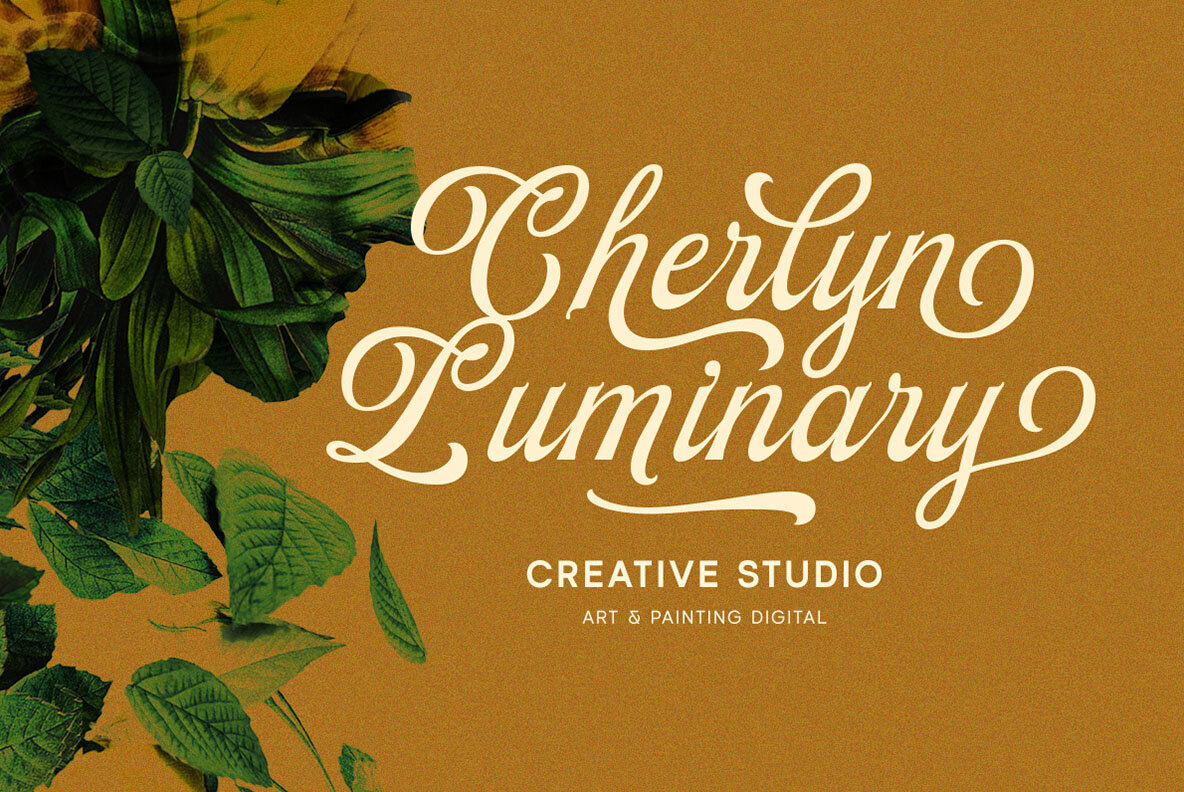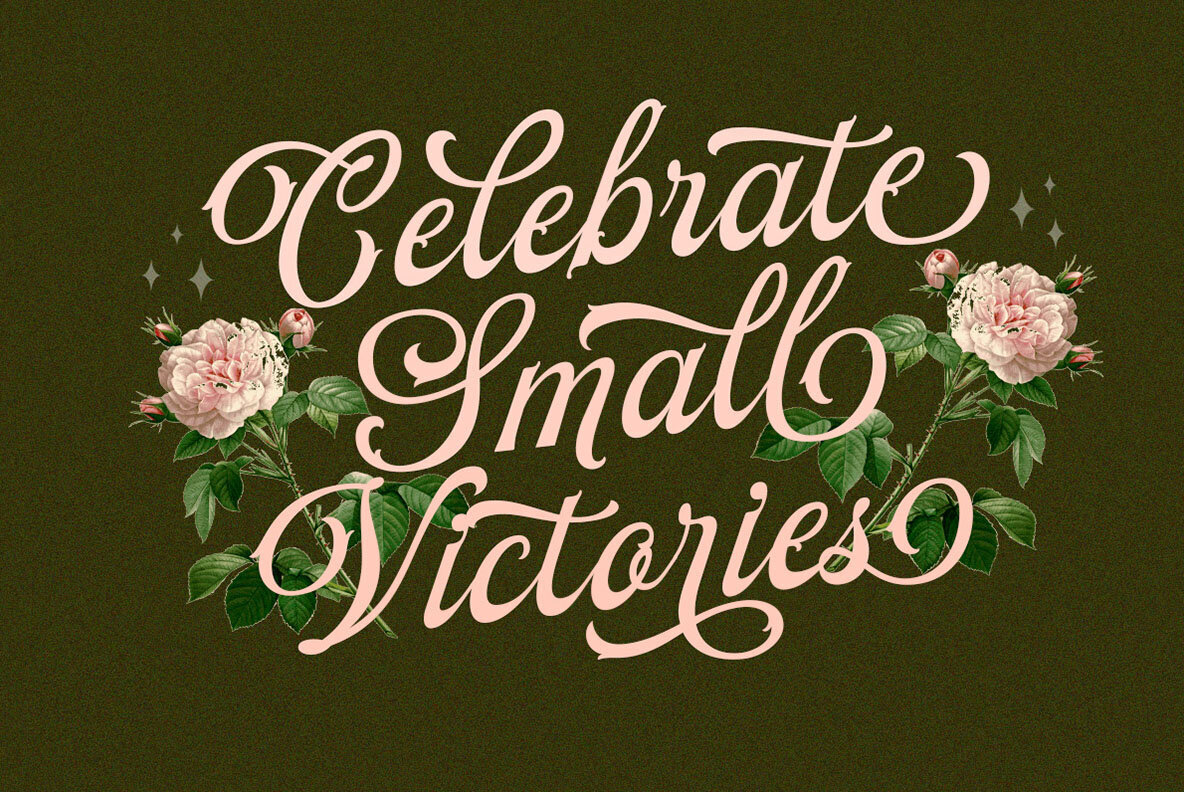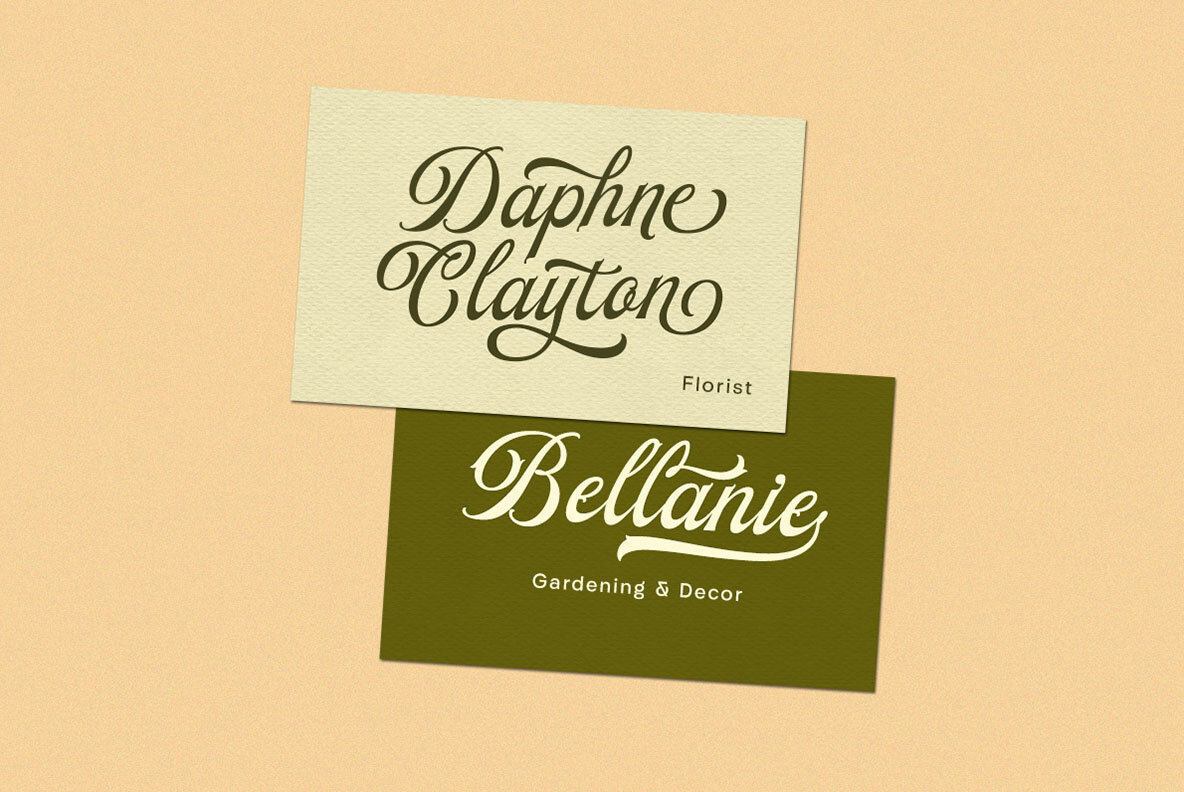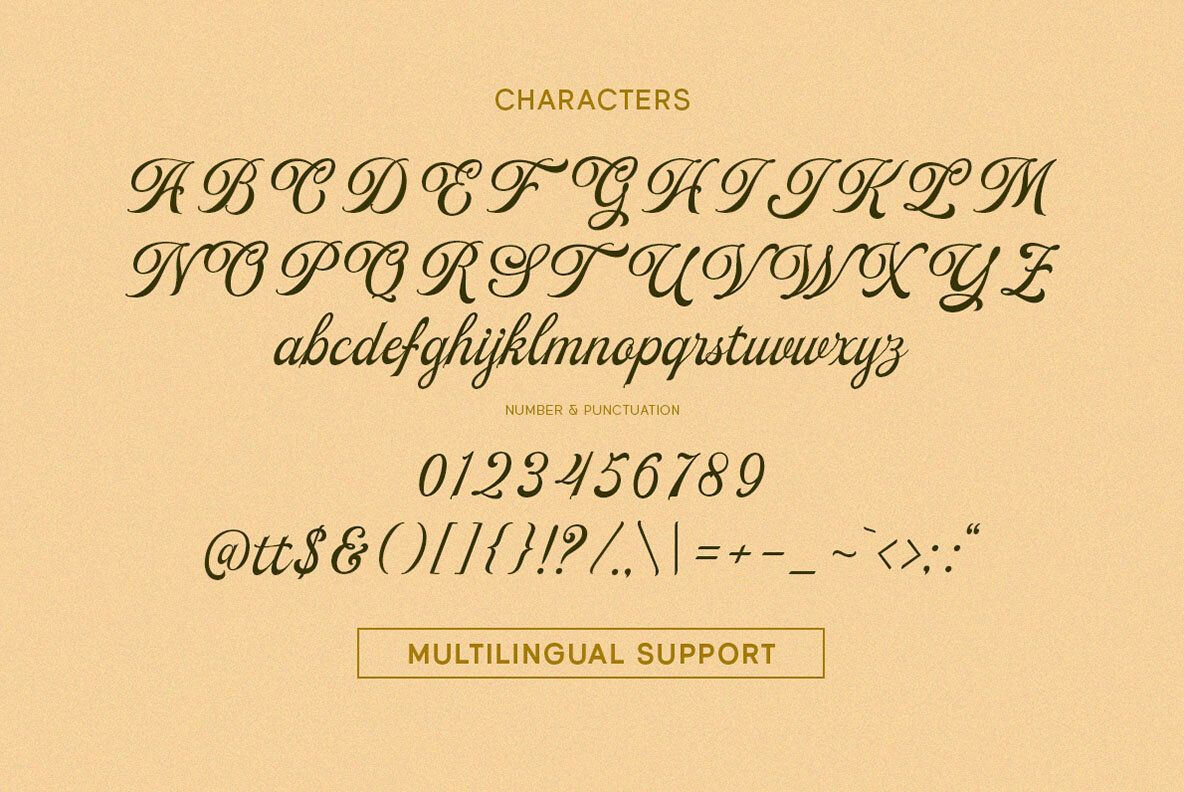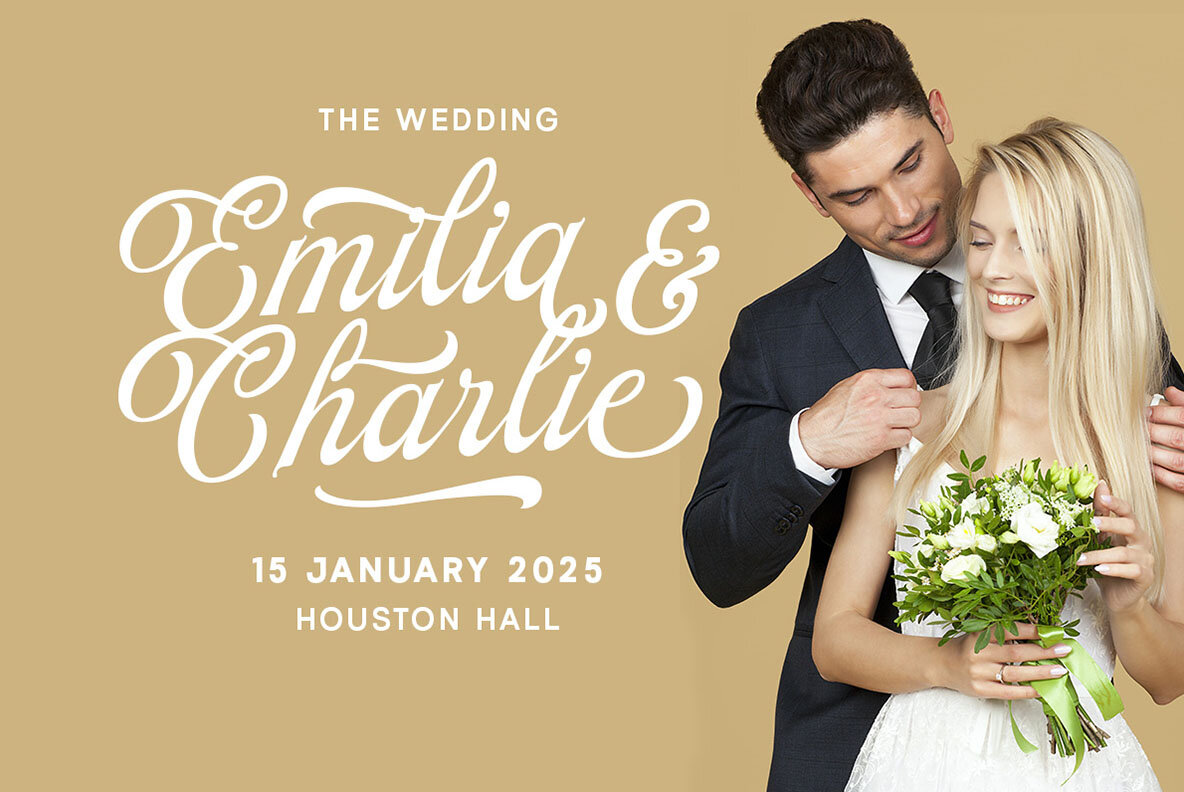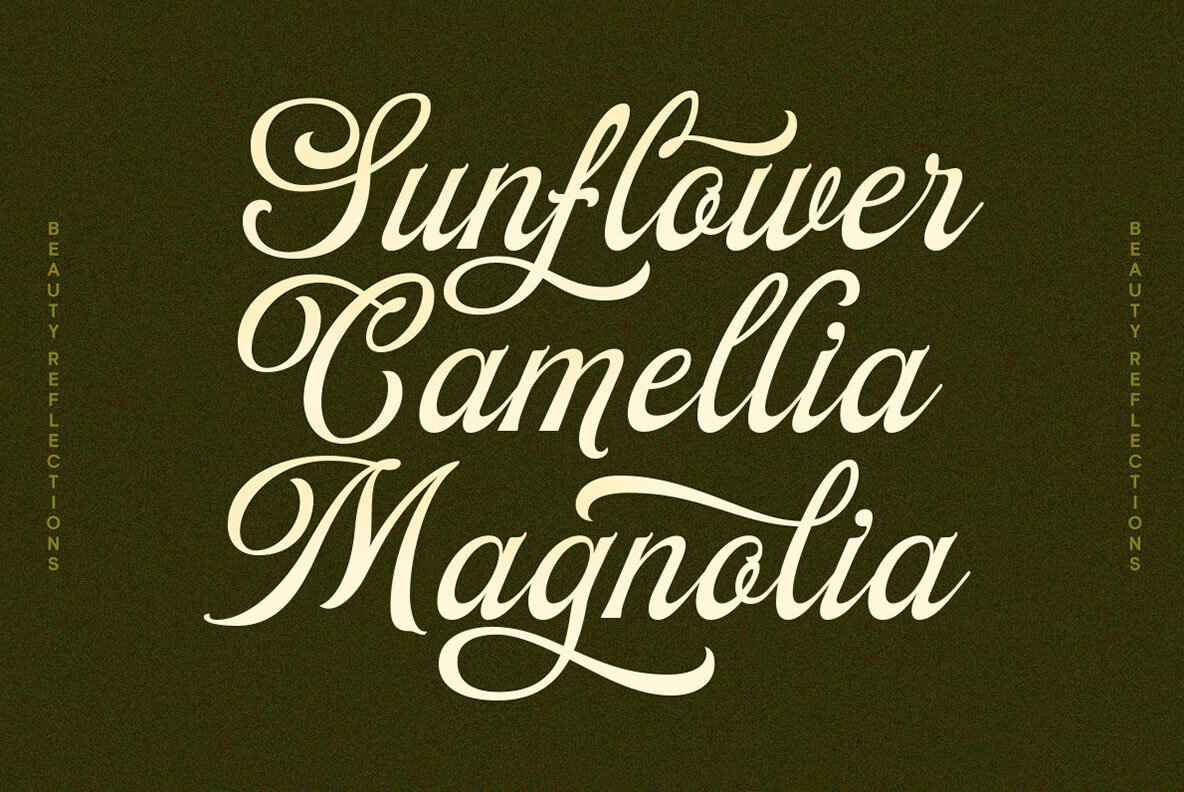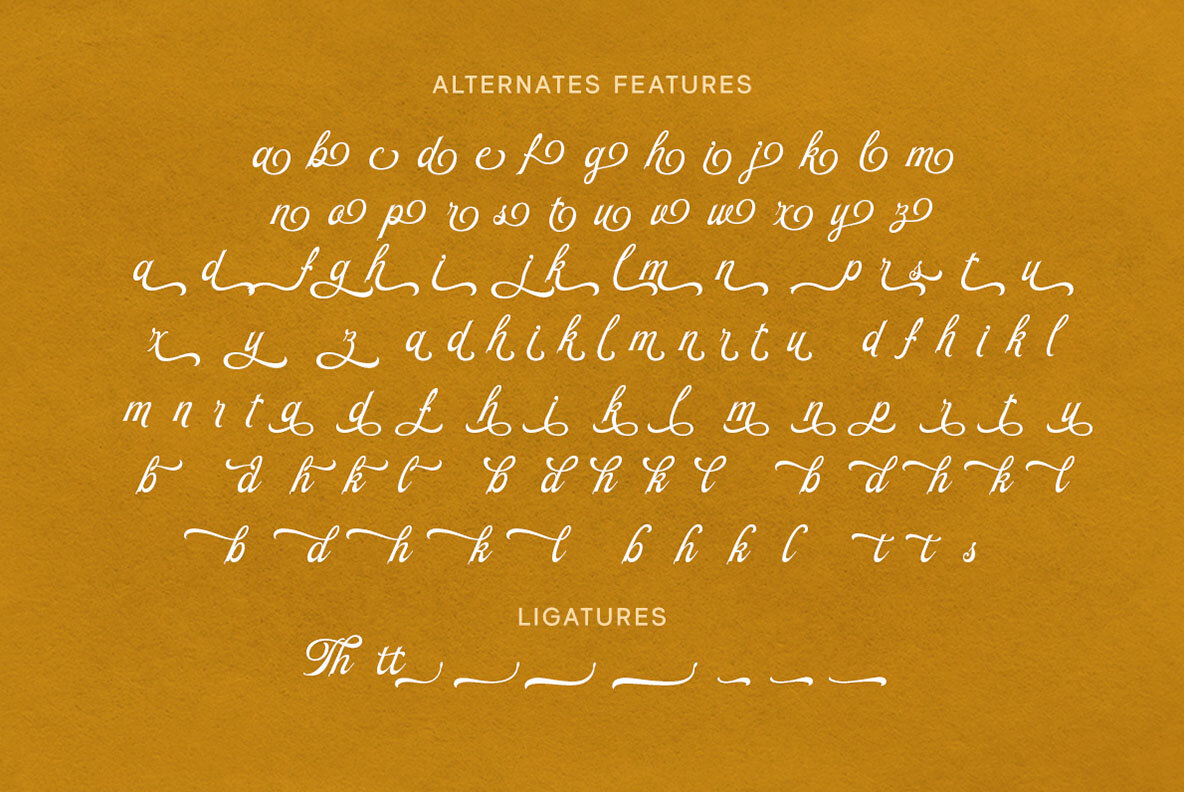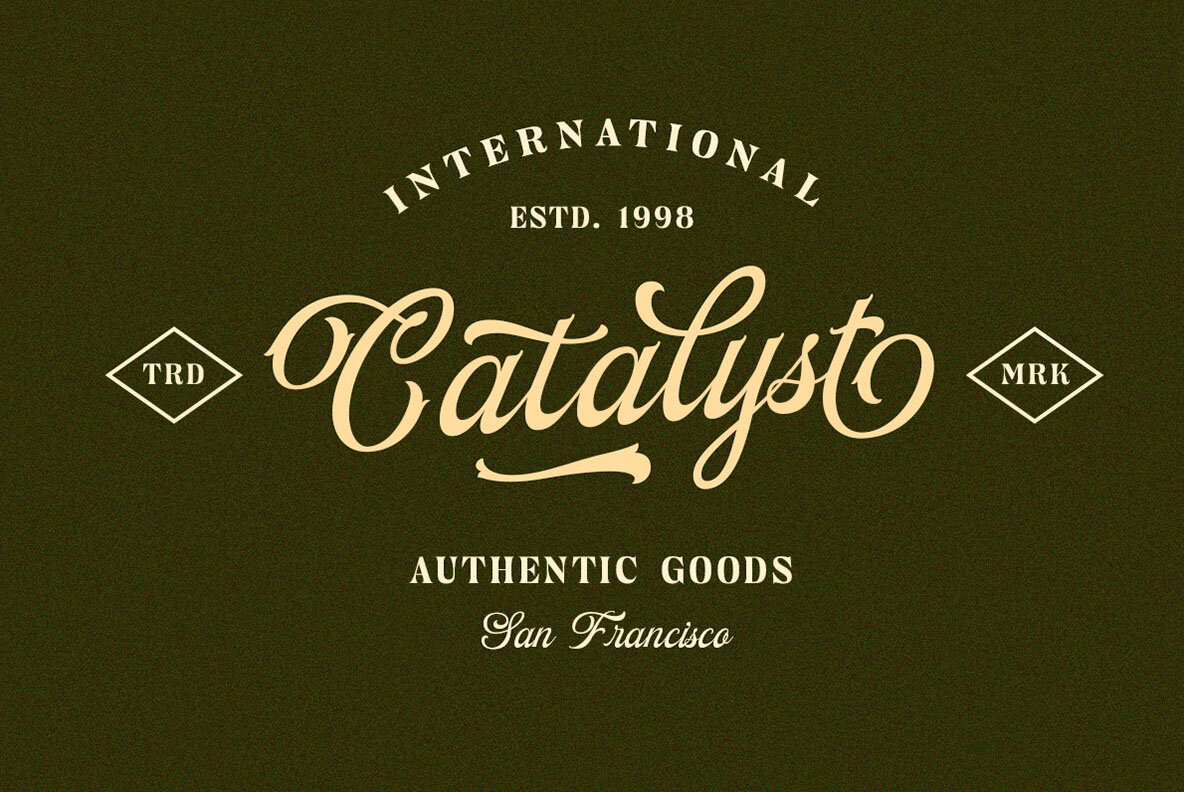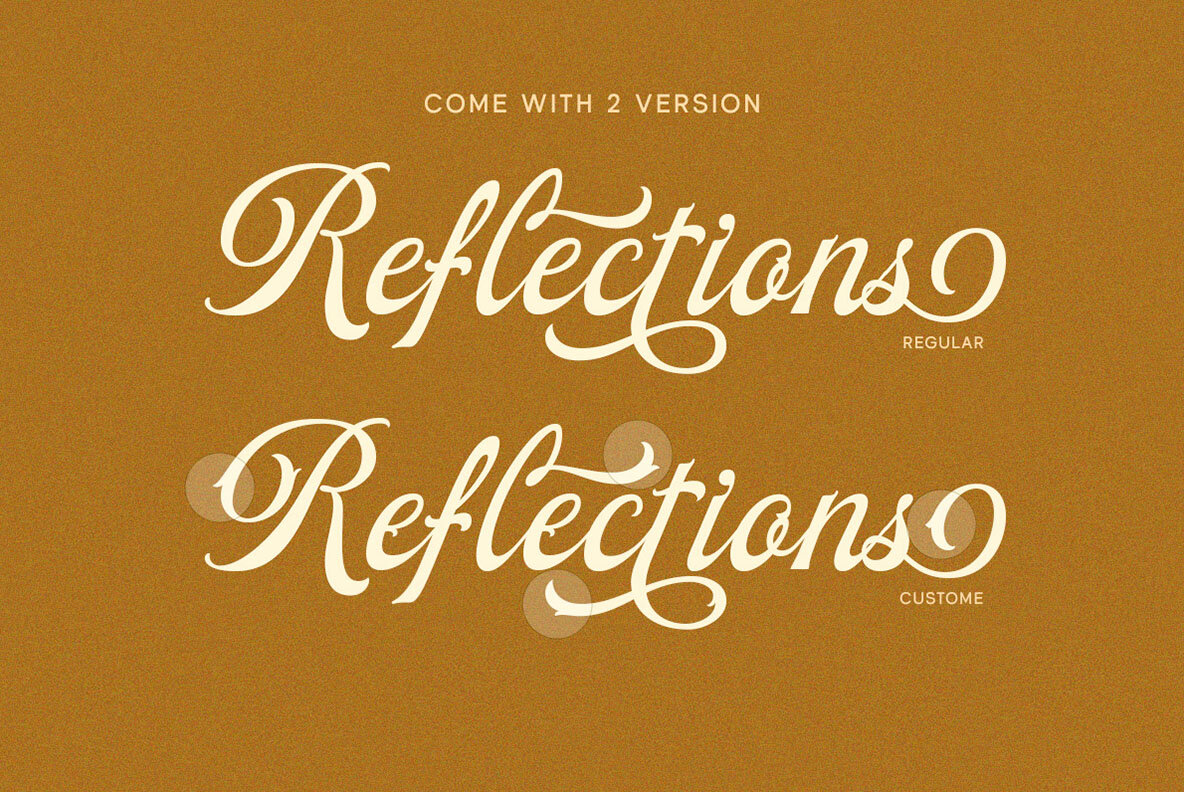
Beauty Reflections Font
Beauty Reflections is a elegant script font that embodies the artistry of calligraphy with a touch of grace. The carefully crafted letterforms exquisite flourishes and intricate details, showcasing the perfect balance between elegance and This font perfectly made to be applied especially in logo, and the other various formal forms such as invitations, labels, logos, magazines, books, greeting / wedding cards, packaging, fashion, make up, stationery, novels, labels or any type of advertising purpose. Features:
comes with regular and custom version.